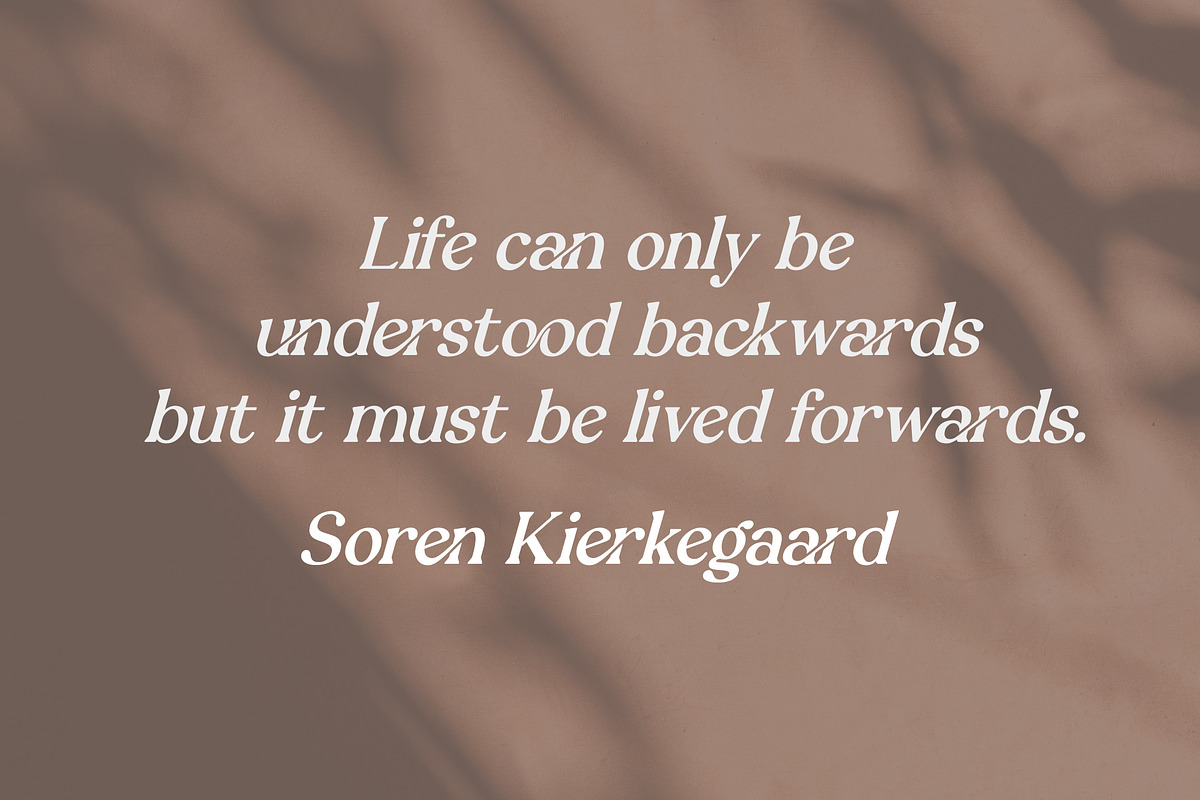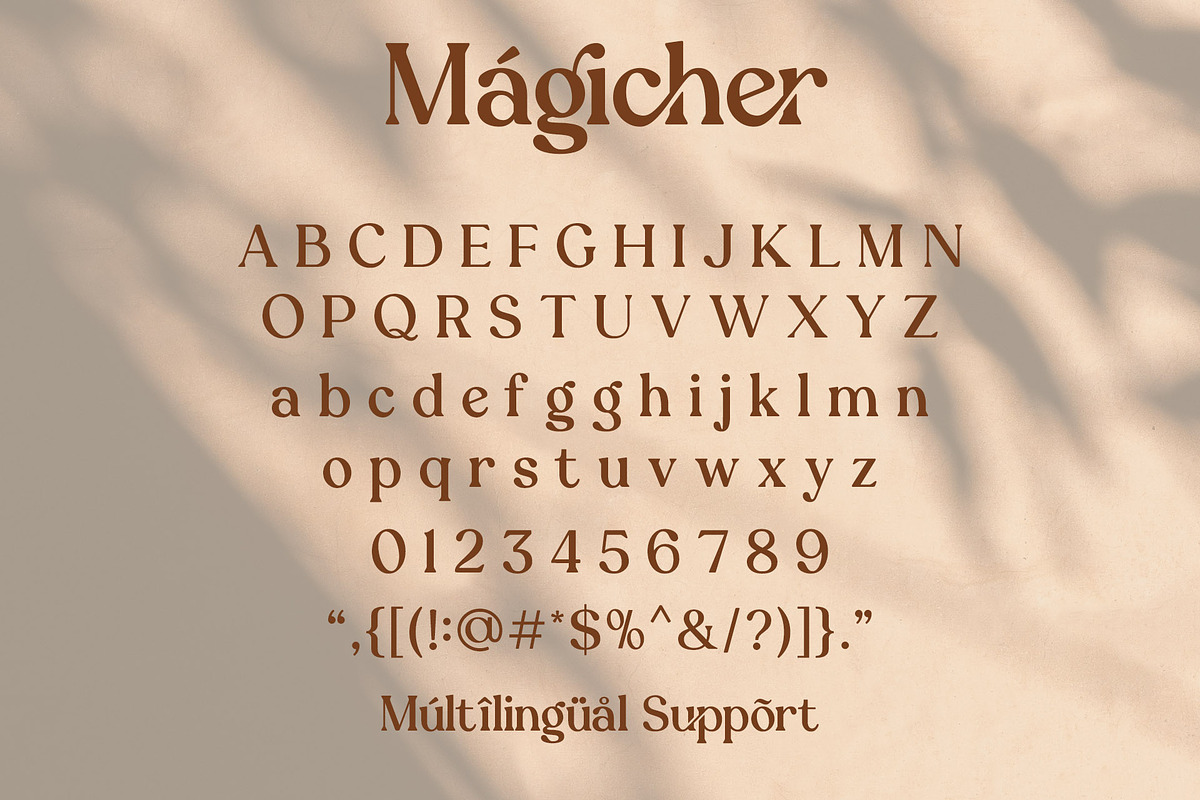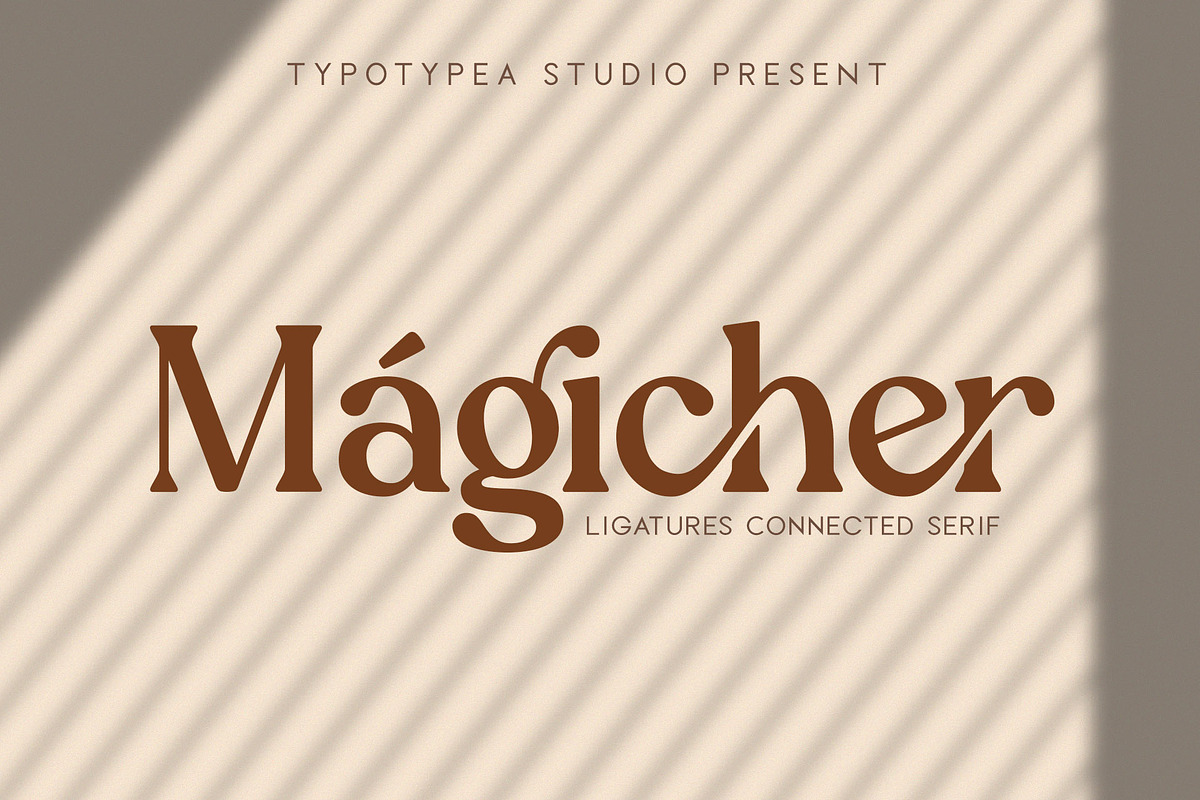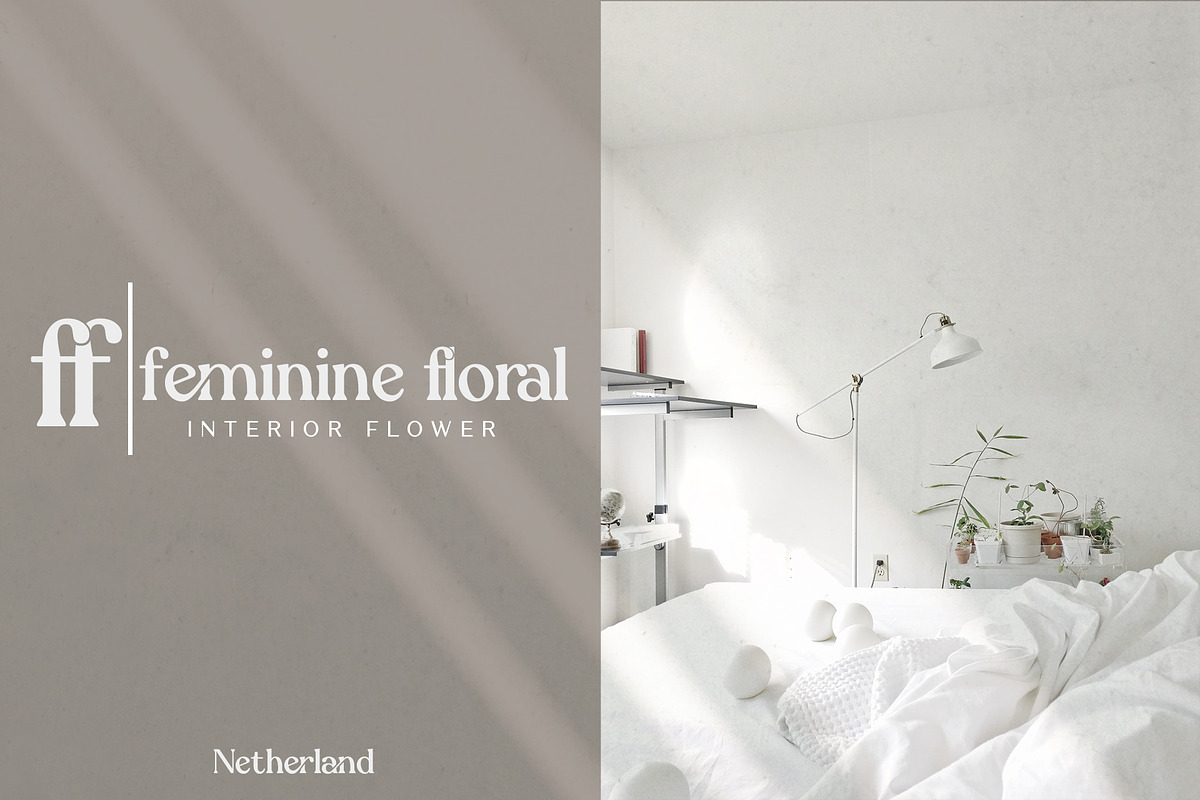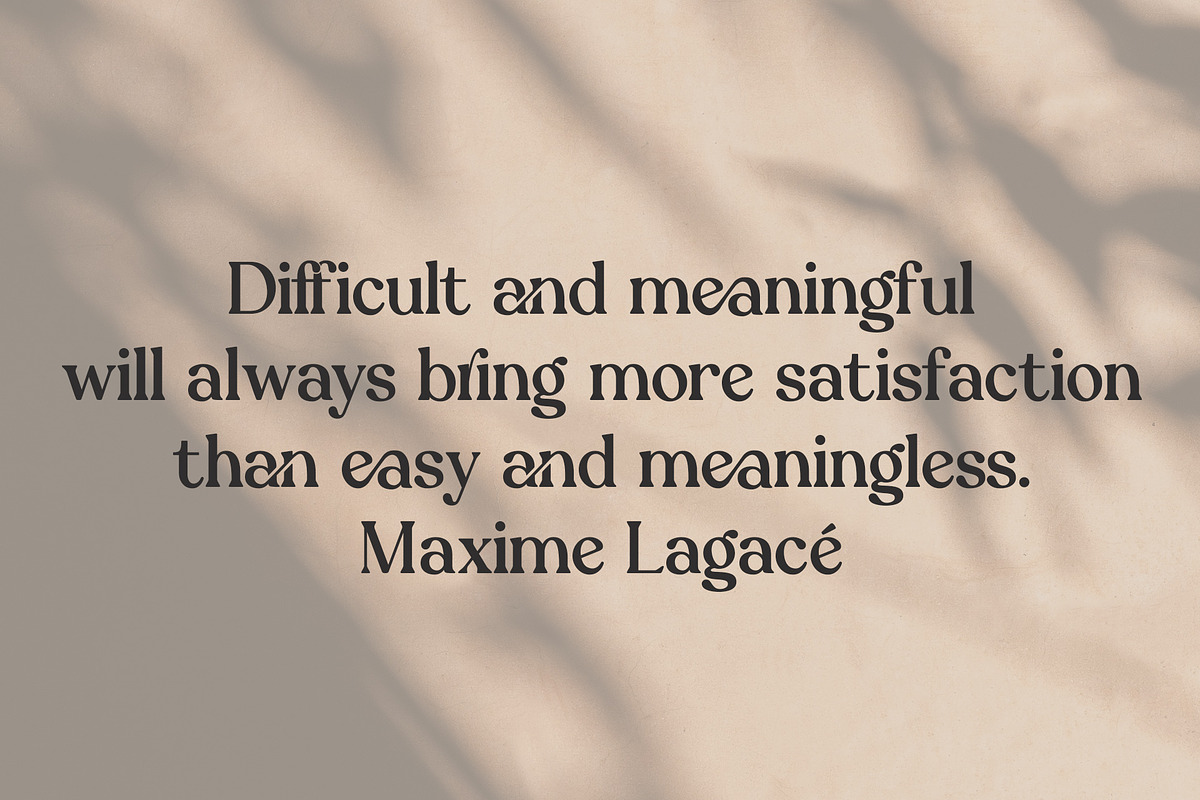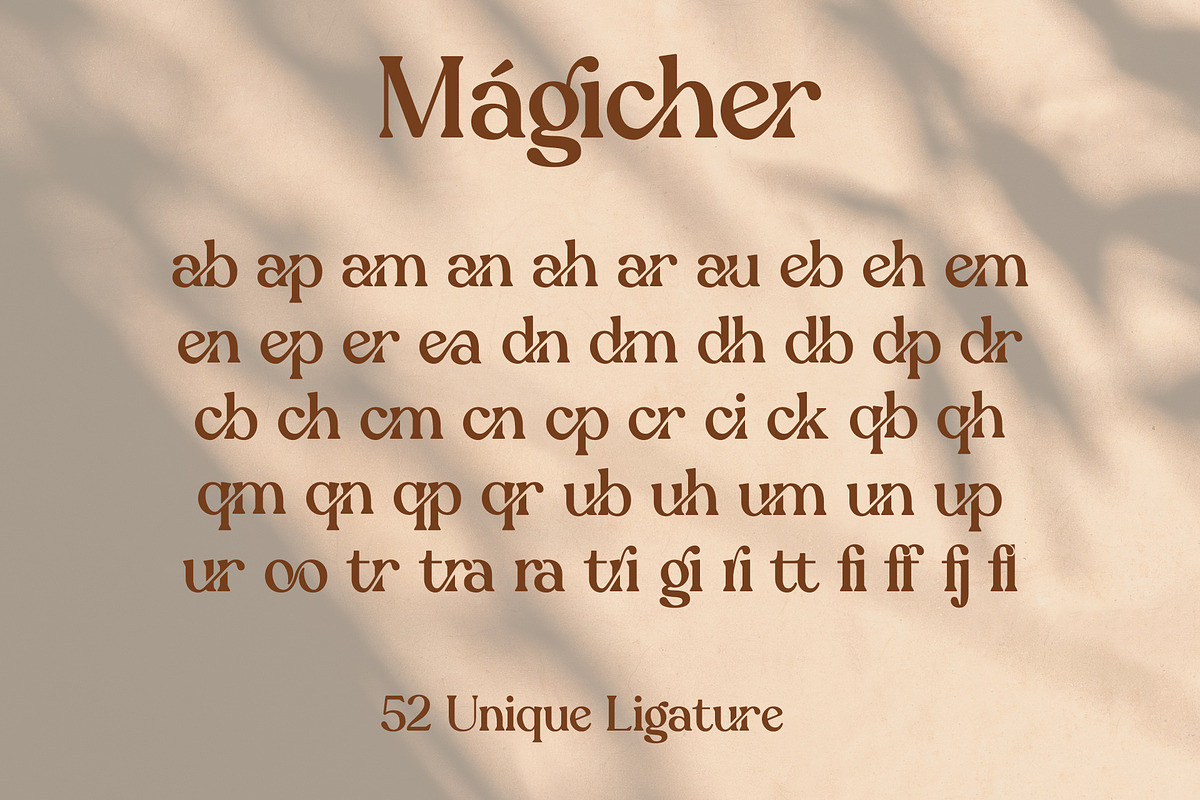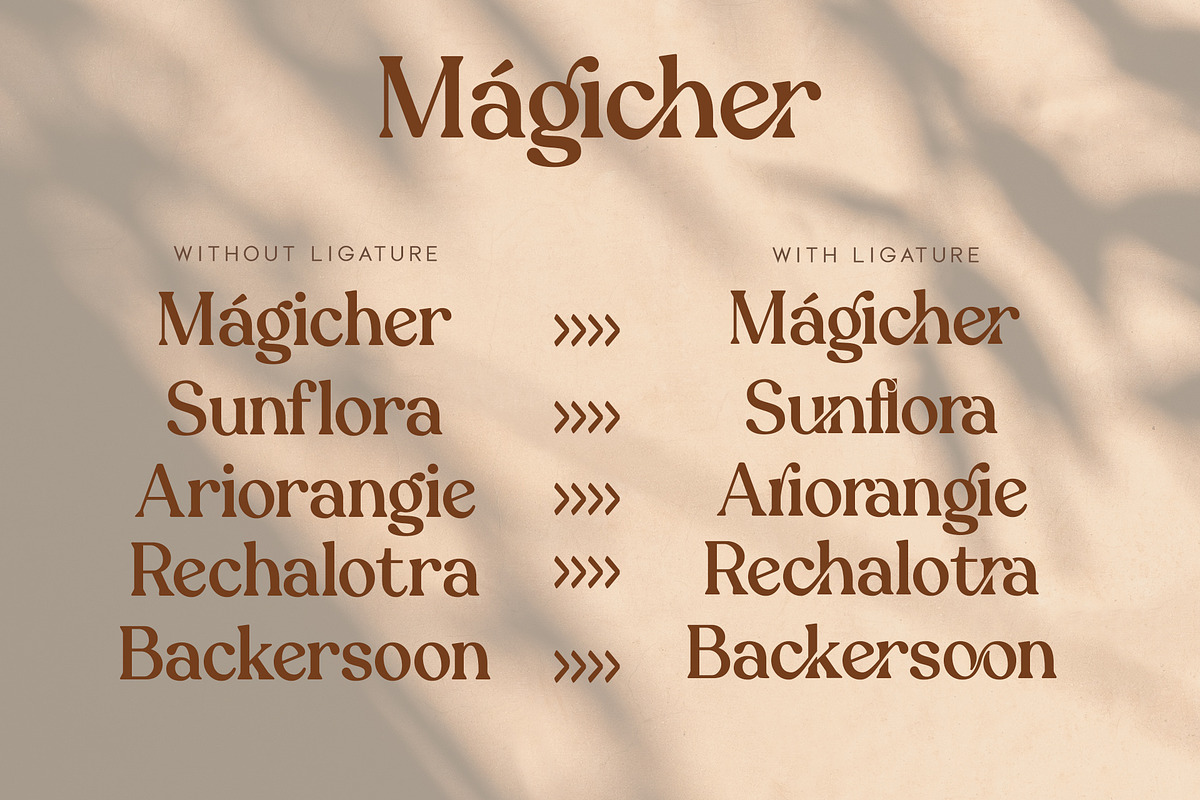
Magicher - Ligature Connected
Hello, Introducing, Magicher - Ligatures Connected Serif is an elegant, unique font that uses ligatures to smoothly link letters. Perfect for adding a unique twist to word-mark logos, monograms or pull quotes. Magicher has 52 ligatures as well as numbers and punctuation making it super fantastic. Ligature can be turned off if required standard writing needs. Any question? Just ask!